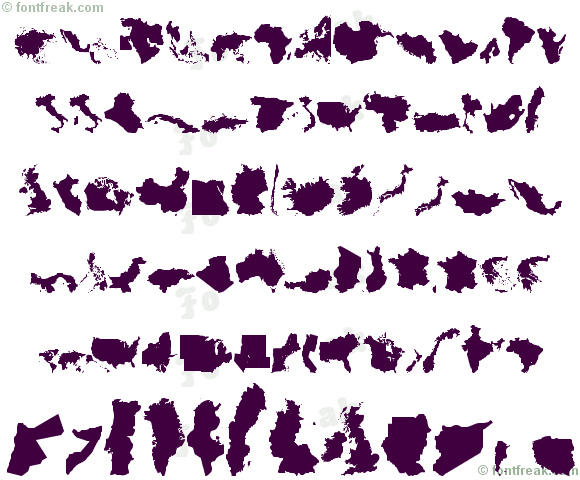
GeoBats
GeoBats, designed by Iconian Fonts in 2007, is a unique decorative dingbat font that captures the imagination with its playful and eye-catching design. This font features a series of intricate glyphs representing various geographical shapes and outlines, making it an excellent choice for projects that require a distinct visual flair. The stroke weight is consistent throughout, providing a solid appearance, while the lack of contrast keeps the design clean and easily readable. The spacing between the characters is thoughtfully arranged, allowing for seamless integration into any layout.
GeoBats is particularly well-suited for a variety of creative applications. Graphic designers can use it for travel-themed posters or educational materials that highlight global geography. Small business owners in the travel industry might find it ideal for brochures or flyers, adding a whimsical touch to their marketing collateral. Additionally, content creators can utilize GeoBats for social media graphics, where the distinctive shapes can capture attention and engage viewers. Wedding planners could also incorporate this font into invitations or save-the-dates, particularly for couples with a love for exploration and adventure.
The target audience for GeoBats includes graphic designers, small business owners, content creators, and anyone looking to add a unique element to their design projects. The free availability of the GeoBats font makes it accessible for both personal and commercial use, allowing creators to experiment without financial constraints.
What truly sets GeoBats apart is its ability to blend functionality with creativity. This font not only serves a practical purpose in conveying information but also adds an artistic touch that can elevate any design. For those seeking a GeoBats font free download, this is an opportunity to enhance your creative toolkit without any cost.